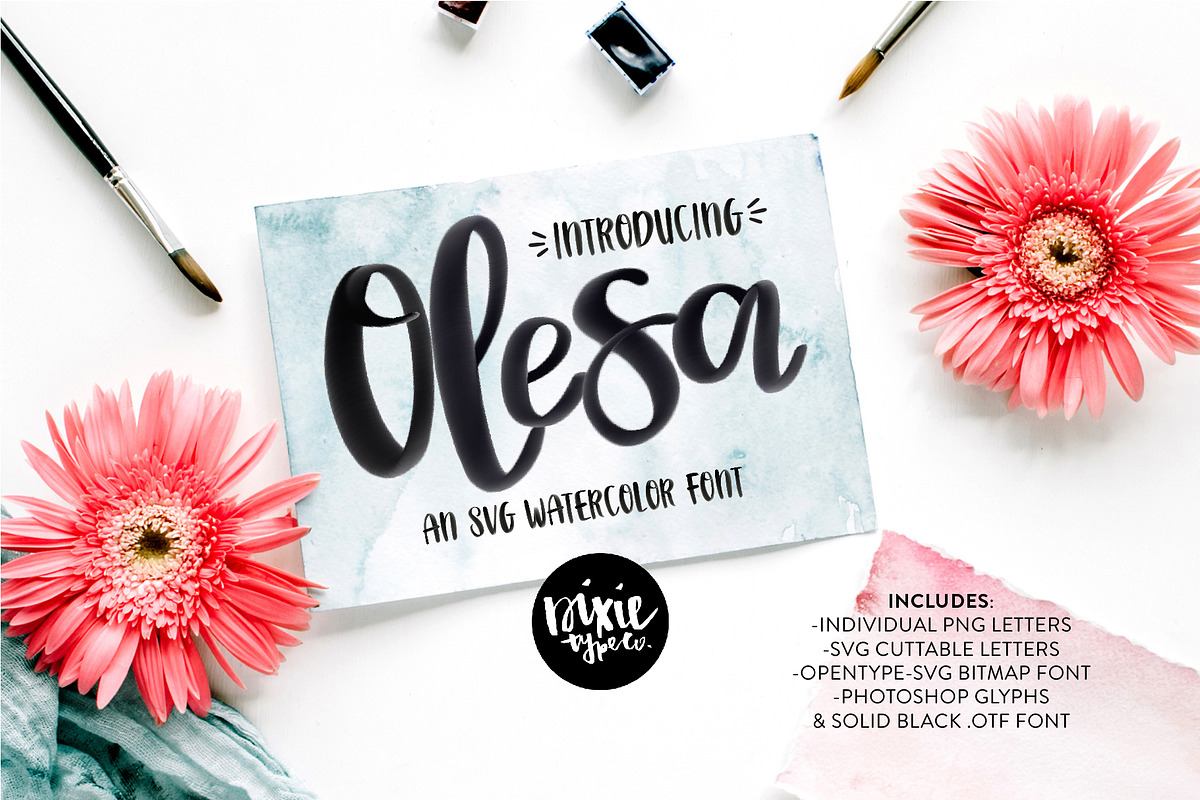
Olesa Watercolor OpenType SVG Font Free Download
Olesa Watercolor OpenType SVG Font Free Download is a beautifully crafted typeface that blends the fluidity of watercolor with the precision of digital design. This font brings a unique artistic touch to your projects, making it perfect for invitations, logos, greeting cards, and creative marketing materials. The OpenType SVG format allows for vibrant watercolor textures to shine through, creating an organic, hand-painted look. Whether you’re designing for a creative brand, a wedding, or a personalized gift, Olesa Watercolor OpenType SVG Font Free Download lets you experiment with its watercolor beauty in personal projects before committing to a commercial license. Infuse your designs with color, creativity, and elegance with this stunning watercolor-inspired font.